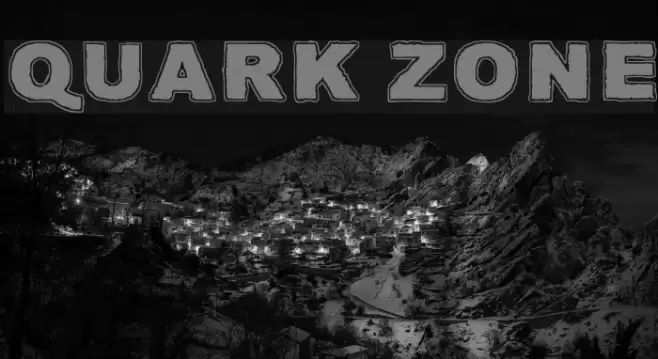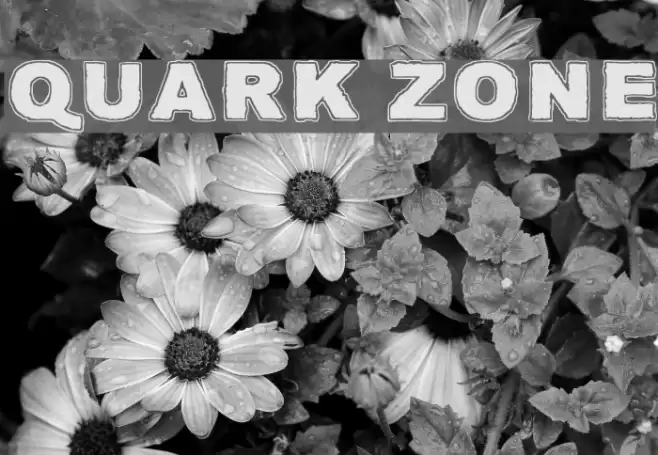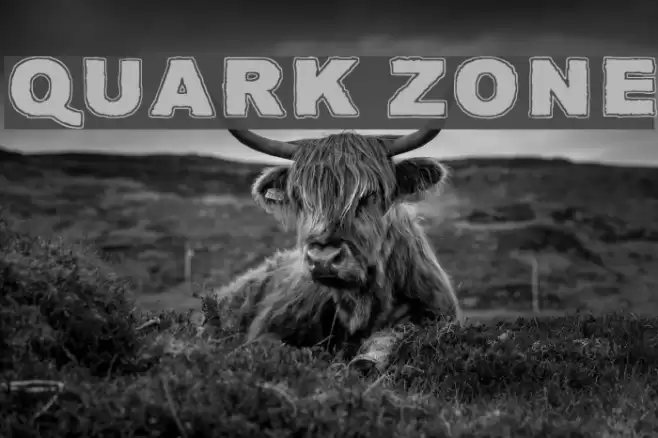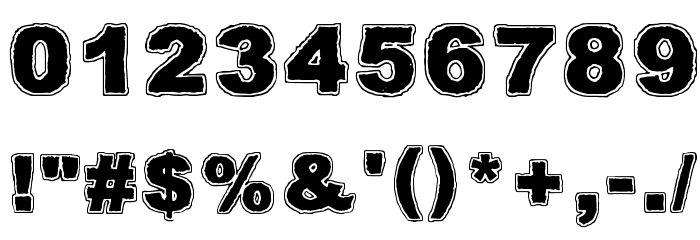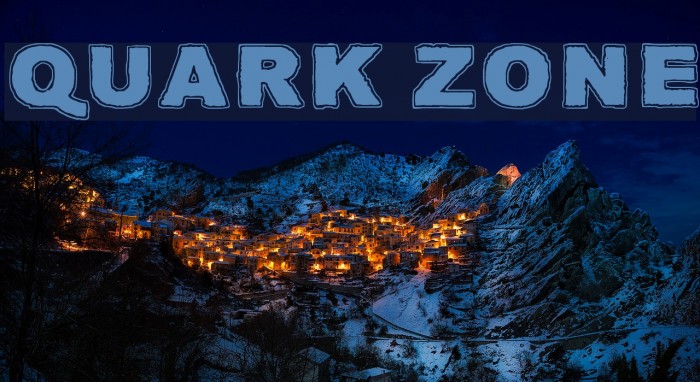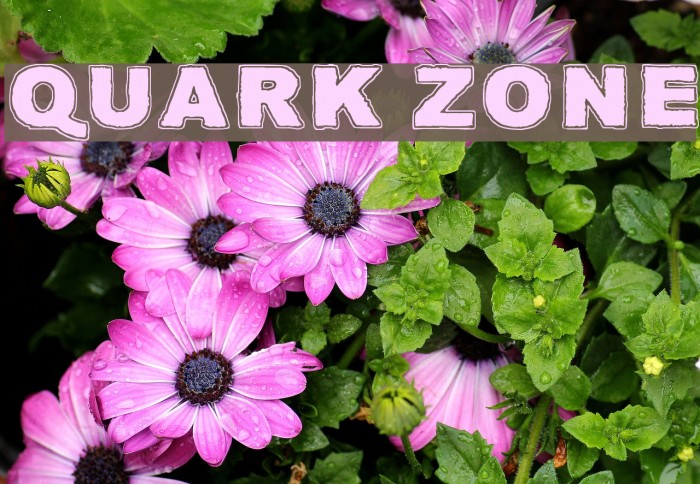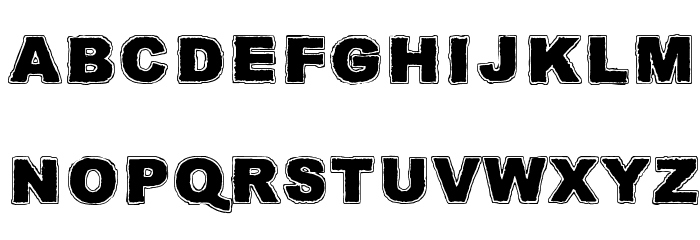
Quark Zone Font
Quark Zone Description
This font features a bold, rugged style with a distressed texture that gives it a vintage, worn appearance. The characters are uppercase and lowercase, with numerals and a variety of special characters. The boldness of the letters is complemented by a rough, uneven edge that adds a sense of depth and character. This font is ideal for projects that require a strong, impactful visual presence, such as posters, logos, and headlines. The distressed texture provides a unique aesthetic that can evoke a sense of nostalgia or a gritty, urban feel.
A bold, distressed font with a rugged, vintage appearance from Uncategorized fonts.
- Proposed Projects: Ideal for posters, logos, headlines, and any design needing a strong, vintage aesthetic.
- Overall Style: Vintage